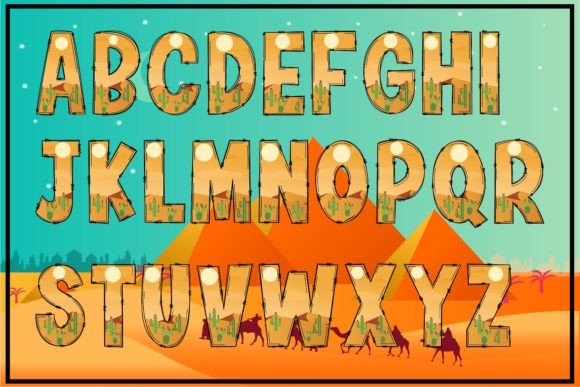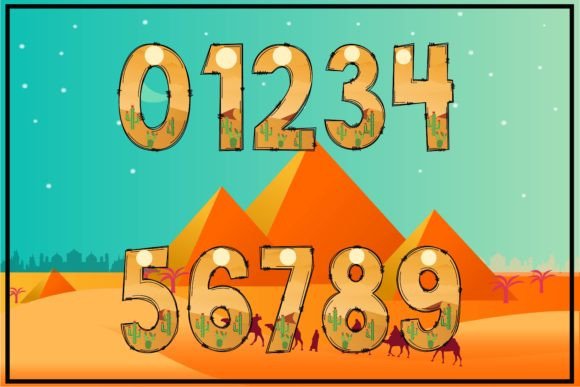
Introducing Desert Font: The Ultimate Modern and Colorful Typeface
Are you looking for a font that can add a touch of modernity and boldness to your designs? Look no further than Desert Font, an attractive and vibrant typeface that is perfect for a wide range of creative projects. In this article, we’ll take a closer look at the features and benefits of Desert Font, and explore how it can elevate your designs to the next level.
What is Desert Font?
Desert Font is a modern and colorful font that boasts a bold and strong look and feel. Its unique design makes it perfect for headlines, titles, and other formal needs such as invitations, labels, logos, magazines, books, greeting/wedding cards, packaging, fashion, makeup, stationery, novels, labels, and more! Whether you’re a designer, crafty DIY enthusiast, or simply someone who loves to create, Desert Font is an excellent addition to your typography arsenal.
Key Features of Desert Font
- Bold and Strong Design: Desert Font features a bold and strong design that is sure to grab attention. Its sturdy lines and geometric shapes make it perfect for creating eye-catching headlines and titles.
- Modern and Colorful: This font is not just bold, but also modern and colorful. Its vibrant color scheme and sleek design make it perfect for projects that require a fresh and contemporary look.
- Versatile: Desert Font is incredibly versatile and can be used for a wide range of projects, from formal events to creative DIY crafts.
- Easily Readable: Despite its bold design, Desert Font is easily readable, making it perfect for both digital and print projects.
Who Can Benefit from Desert Font?
Desert Font is perfect for a variety of designers and crafters, including:
- Graphic Designers: If you’re a graphic designer looking for a modern and bold font to add to your collection, Desert Font is an excellent choice.
- DIY Enthusiasts: If you love to create and craft, Desert Font is perfect for adding a professional touch to your DIY projects.
- Fashion and Beauty Designers: If you’re a fashion or beauty designer looking for a font that can add a touch of glamour and sophistication to your designs, Desert Font is an excellent choice.
- Stationery and Card Makers: If you love to create stationery, greeting cards, or wedding cards, Desert Font is perfect for adding a modern and bold touch to your designs.
How to Use Desert Font
- Pair it with Other Fonts: Desert Font pairs well with other fonts, so feel free to experiment with different combinations to create a unique look.
- Experiment with Colors: Desert Font comes in a range of colors, so don’t be afraid to experiment and find the perfect color scheme for your project.
- Use it for Headlines and Titles: Desert Font is perfect for headlines and titles, so use it to add a bold and modern touch to your designs.
In conclusion, Desert Font is an attractive and modern colorful font that is perfect for a wide range of creative projects. Its bold and strong design, modern and colorful look, and versatility make it an excellent addition to any designer’s or crafter’s typography collection. Whether you’re a graphic designer, DIY enthusiast, fashion or beauty designer, or stationery and card maker, Desert Font is sure to elevate your designs to the next level.